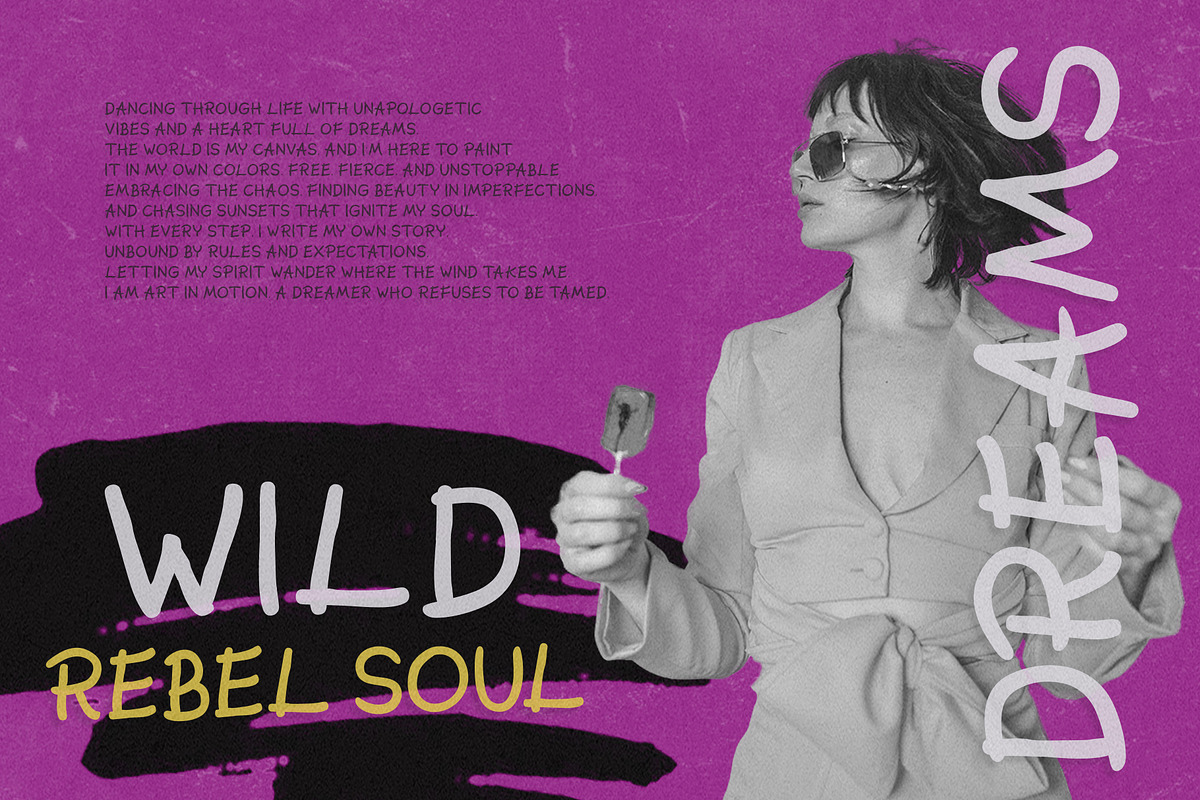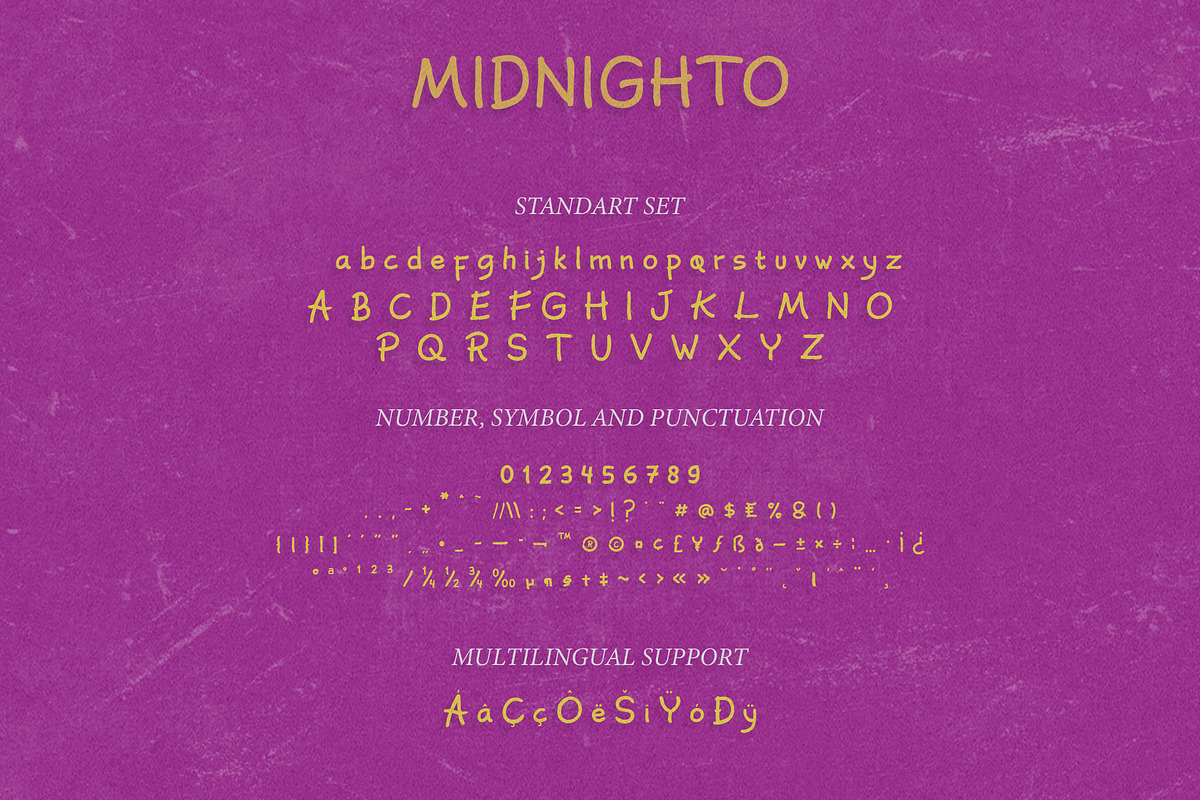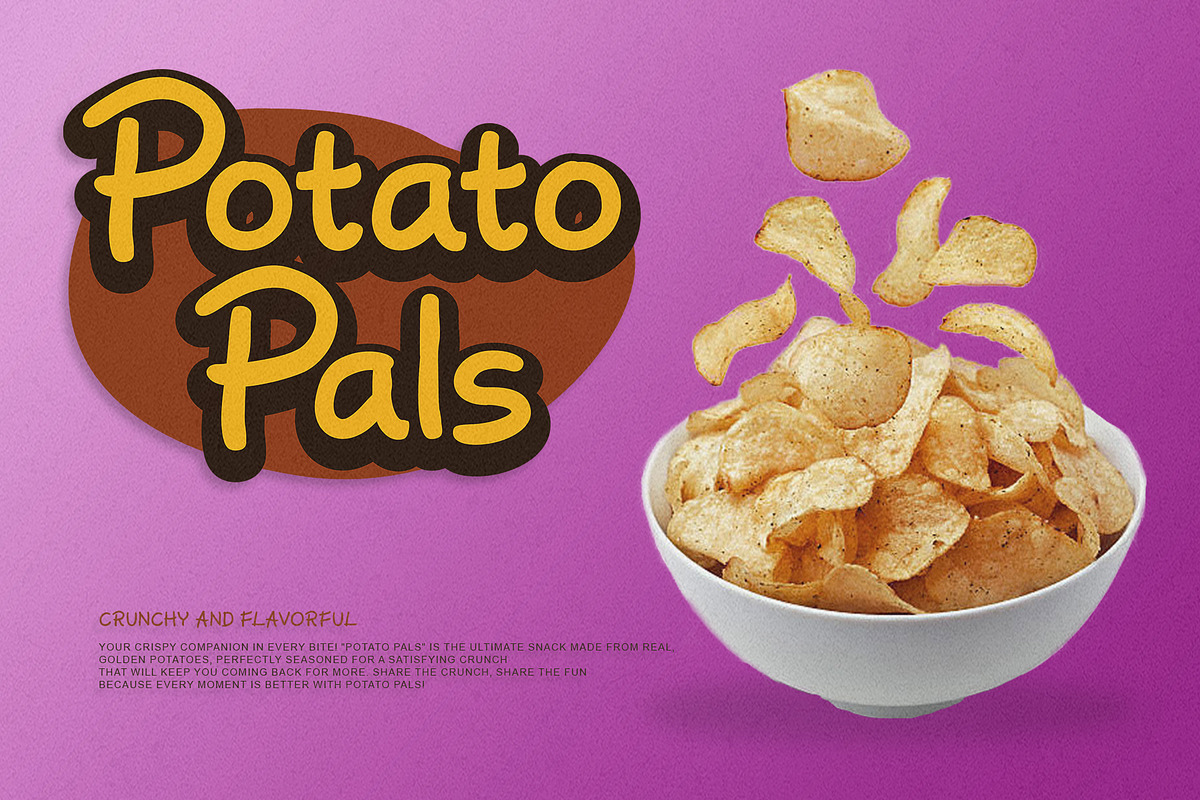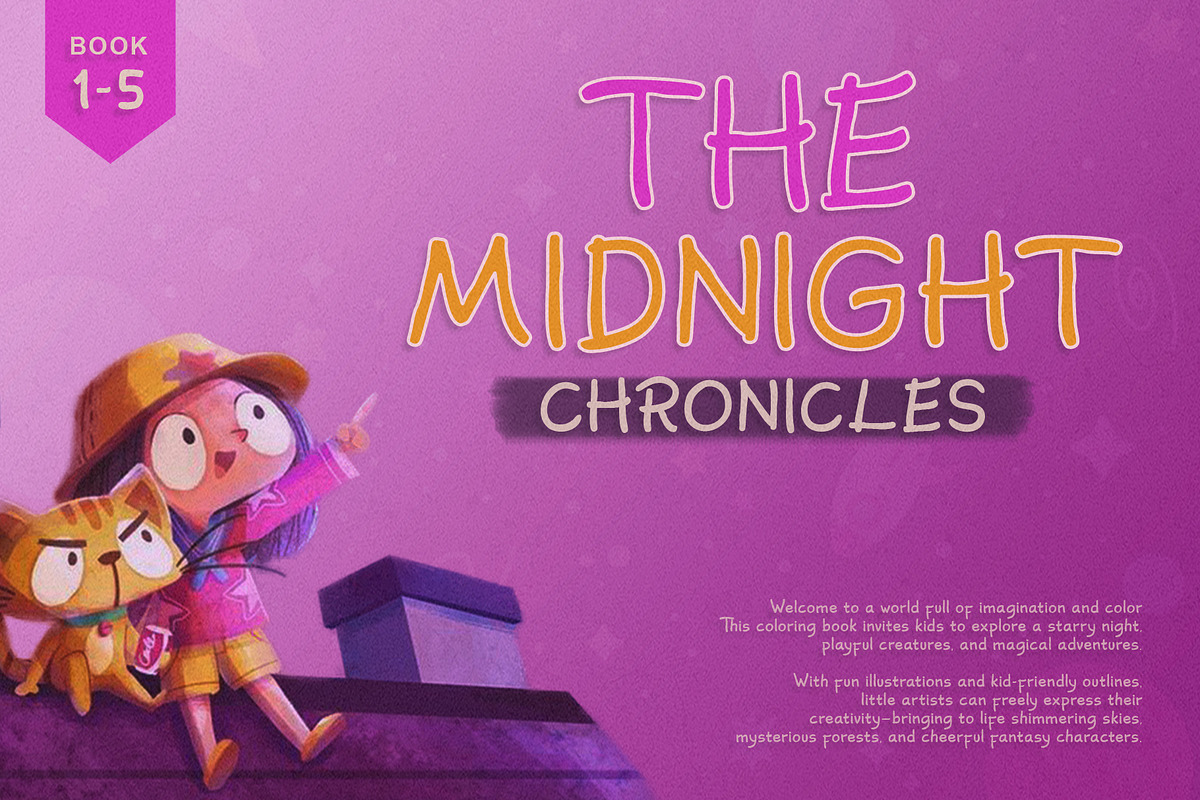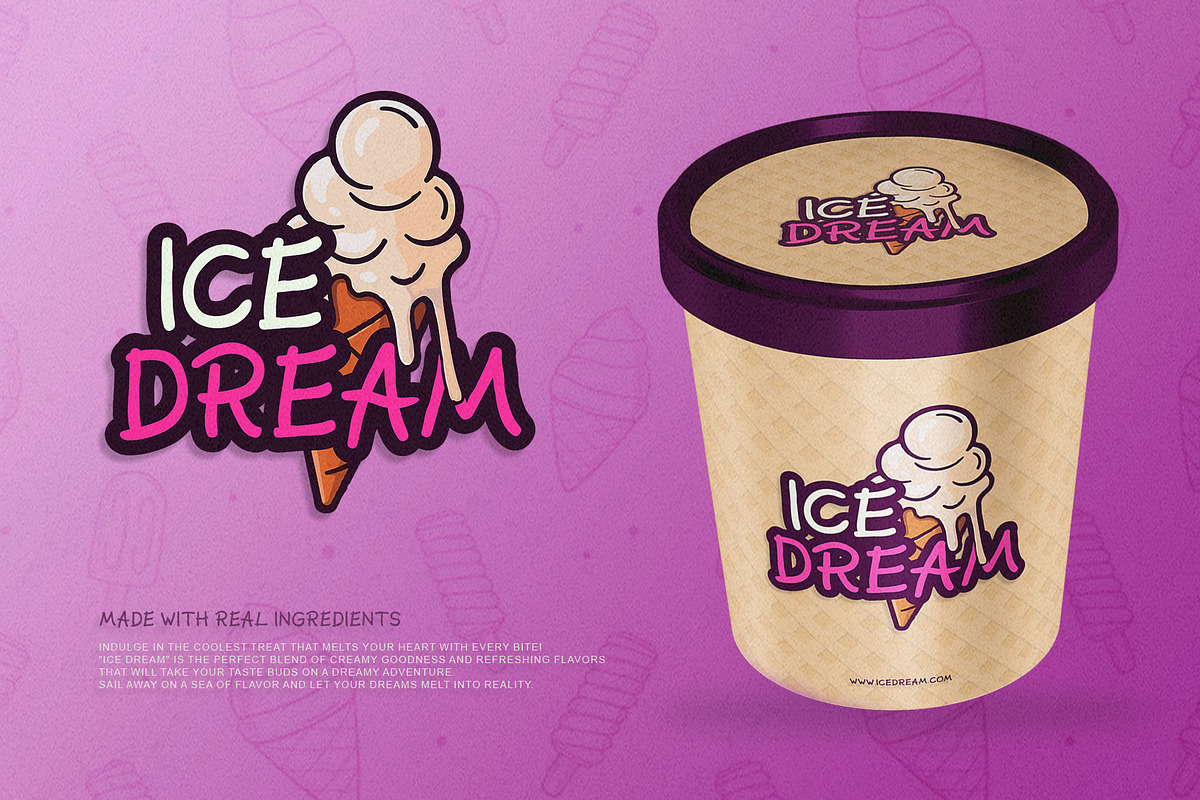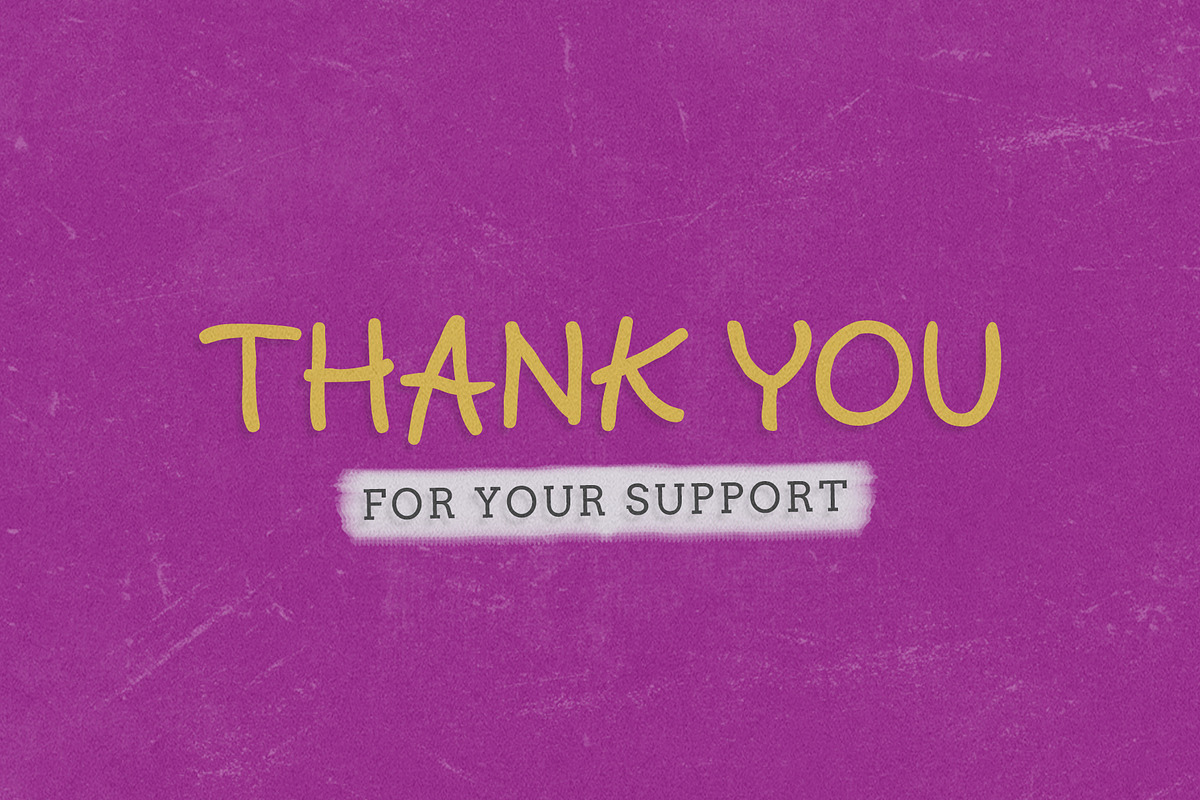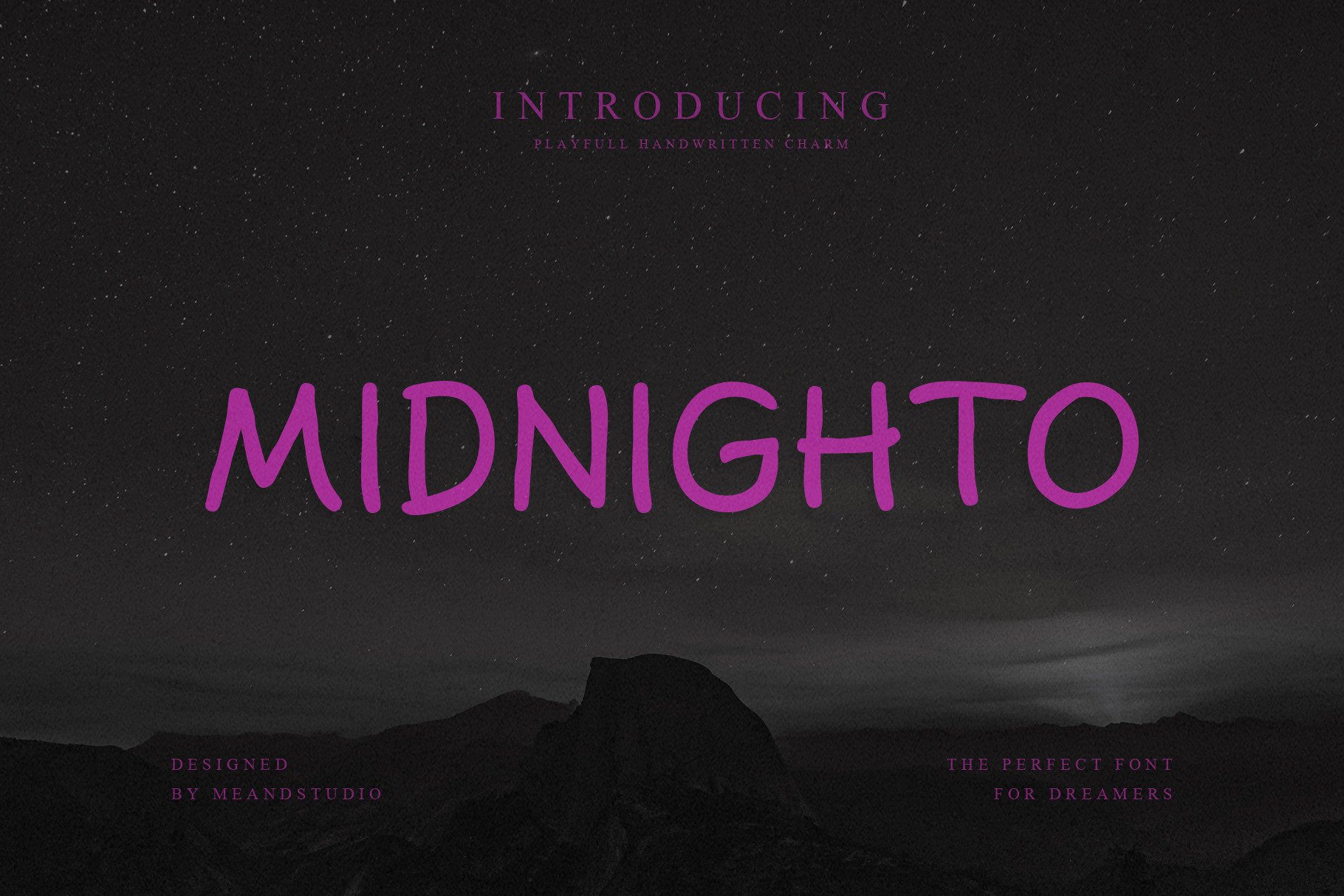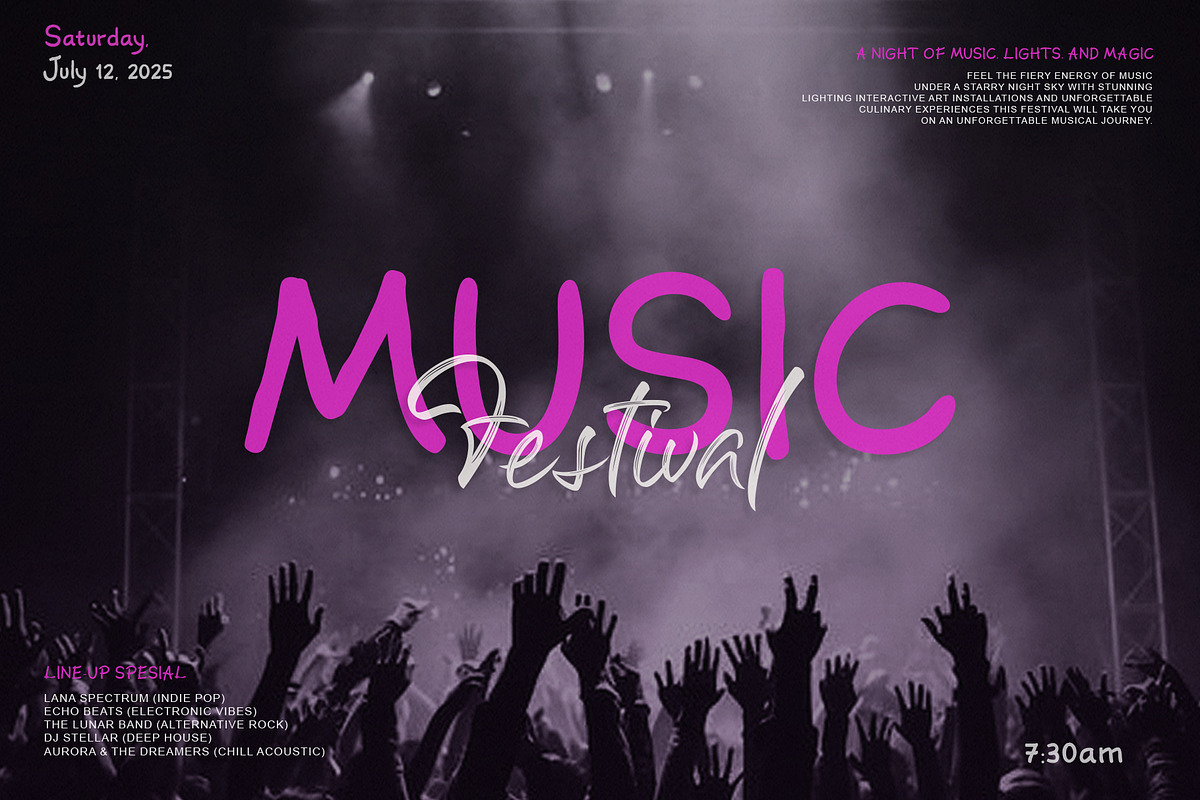
MIDNIGHTO Playful Handwritten Font
Introducing MIDNIGHTO, a whimsical and eye-catching handwritten display font that brings a playful charm to your creative work. With its slightly irregular yet highly legible characters, MIDNIGHTO is perfect for projects that need a touch of fun and personality.
Uppercase and lowercase letters
Numbers, punctuation, and symbols
Multilingual support (including accented characters)
Unique, hand-crafted feel with a slightly spooky vibe – ideal for Halloween themes, fantasy titles, and magical branding
Use MIDNIGHTO for posters, children's storybooks, stickers, greeting cards, social media graphics, or any design that calls for a bold and enchanting style.